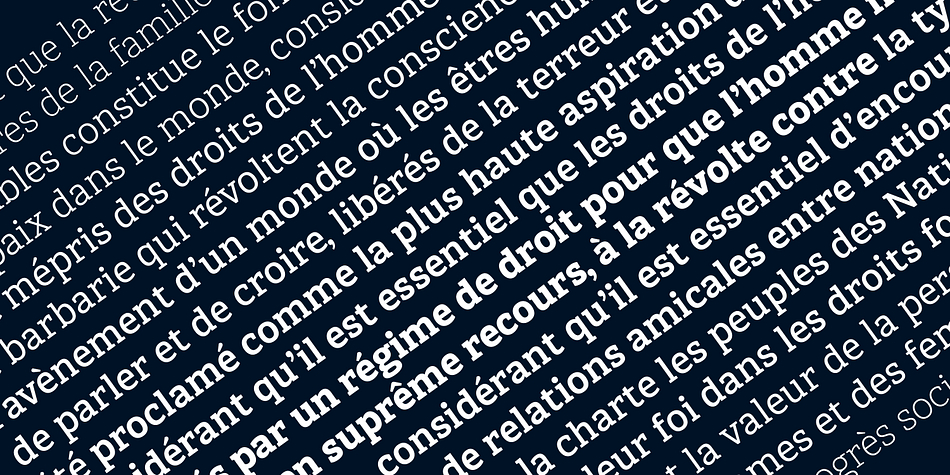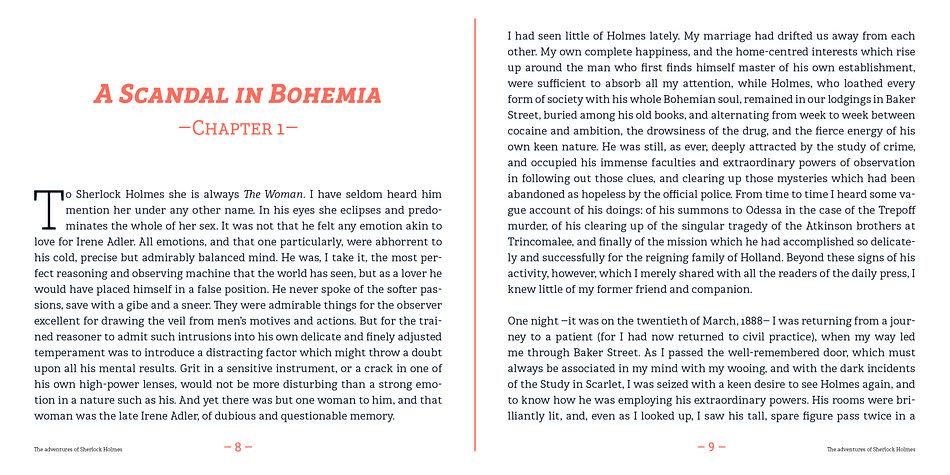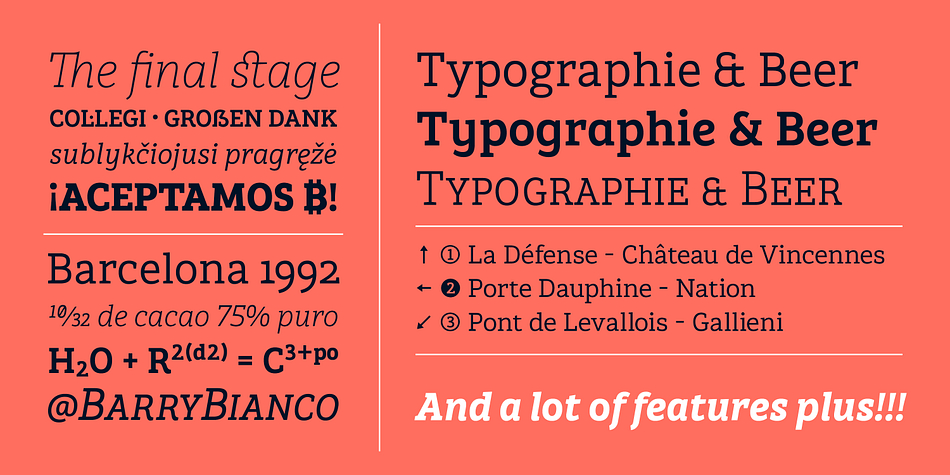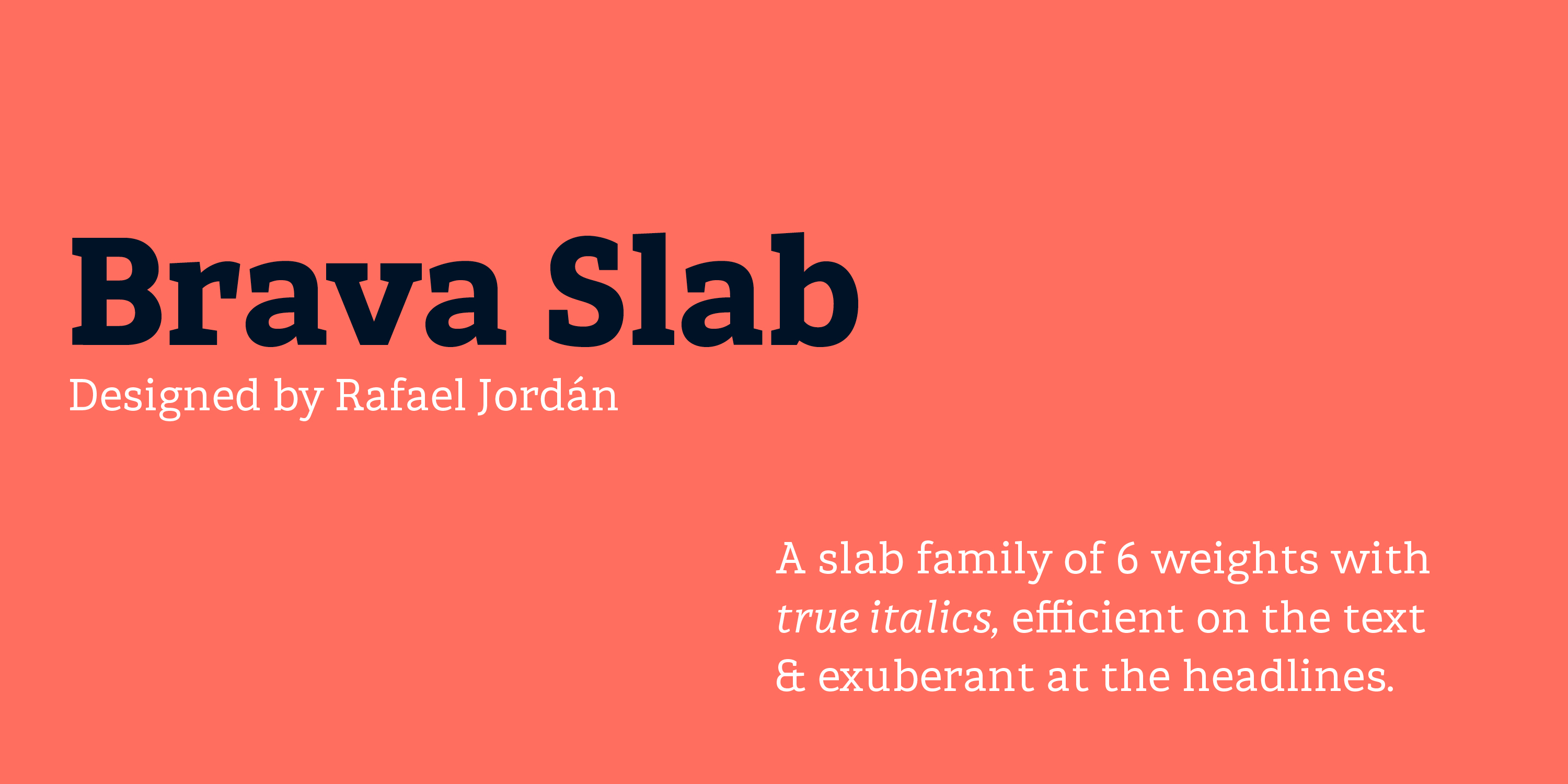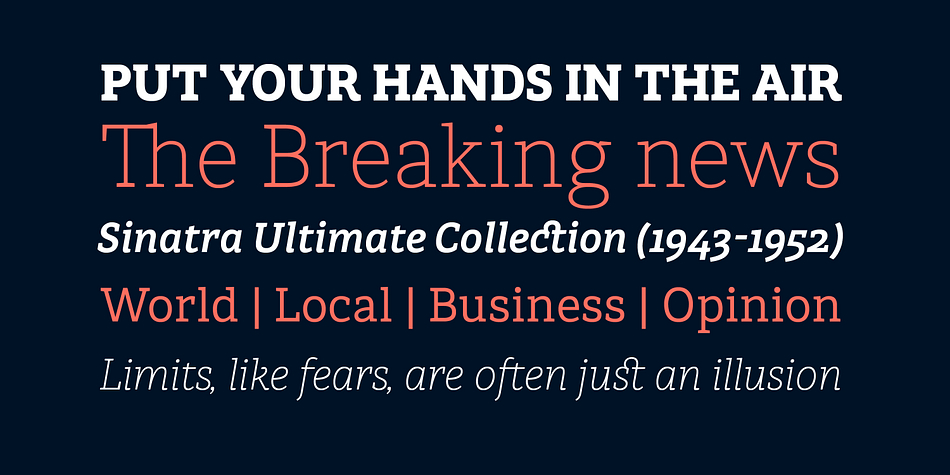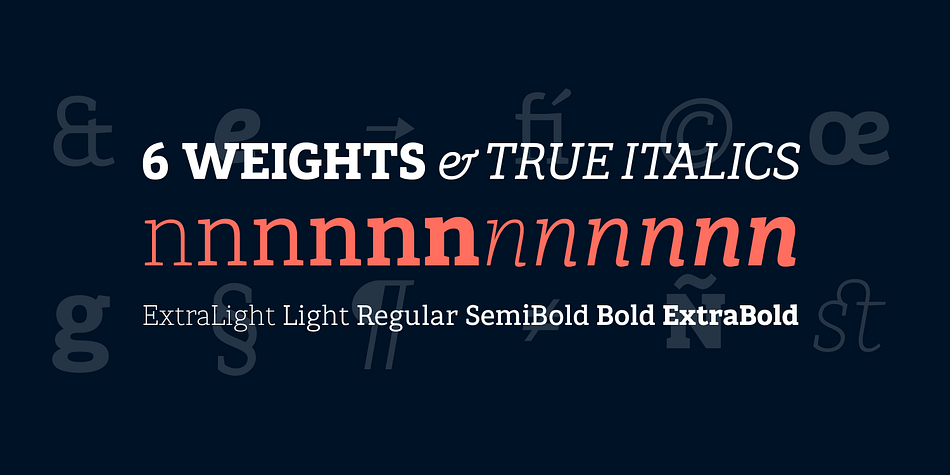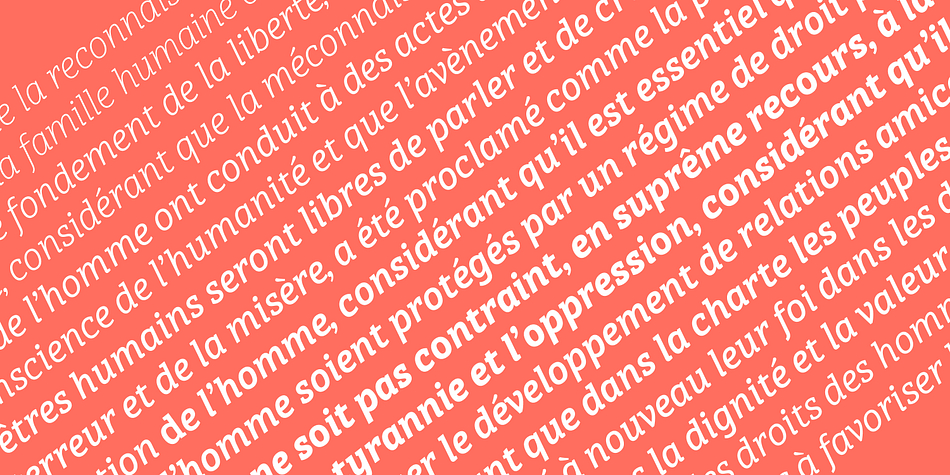
Designed by Rafael Jordan, Brava Slab is a slab serif font family. This typeface has twelve styles and was published by Rafael Jordan.
Brava Slab is a family of 6 weights with matching italics. Designed for editorial purpose, it has a monolinear appearance with a humanist construction, open counters and a tall “x height” that give it a right personality for use in branding. Also Brava Slab have a lot of helpful features as a wide range cover of Latin languages and lots of OpenType features that make Brava Slab a useful tool for the graphic designer.
A full range of numerals (included old style figures, lining, numerators, denominators, superiors, subs, circled and black circled), small caps, forty ligatures (between standard & discretionary ligatures), a lowercase superior and inferior set and a stylistic set are some of the features that makes Brava Slab a solid choice.